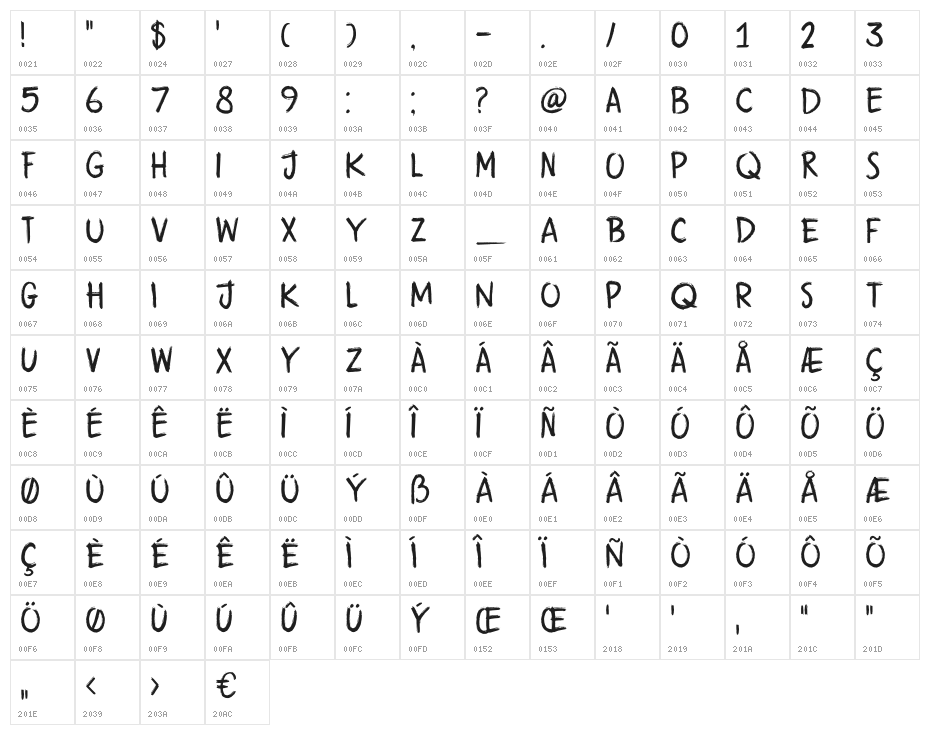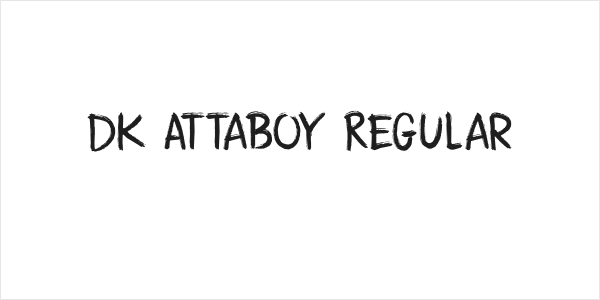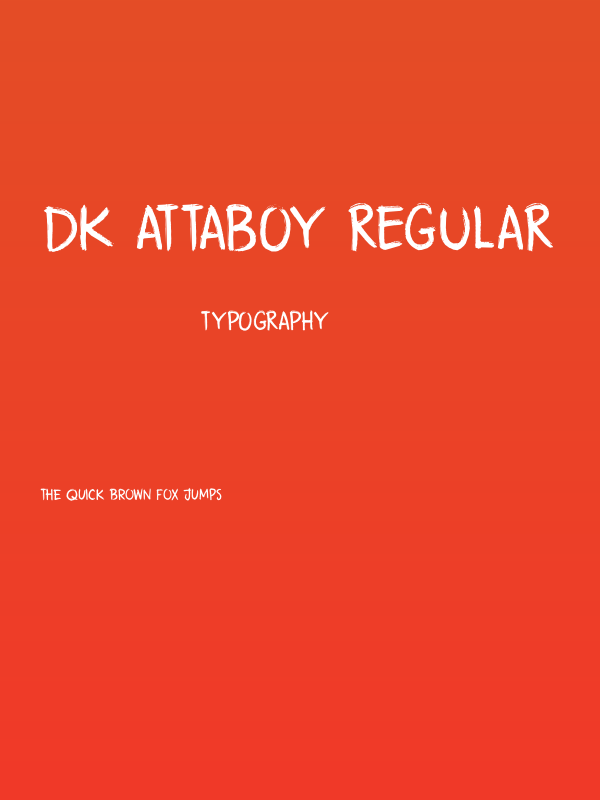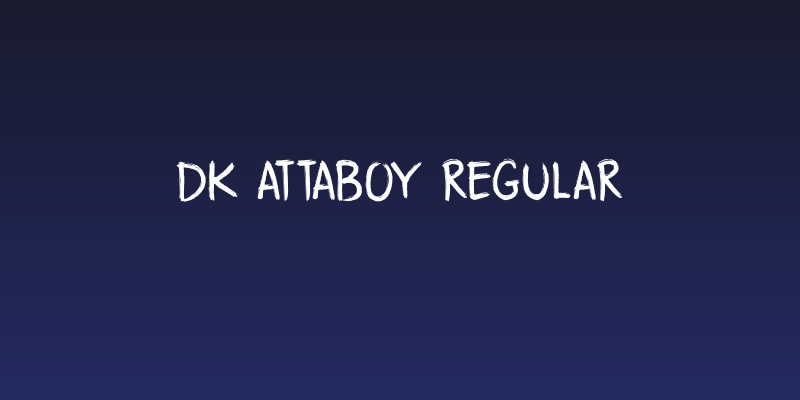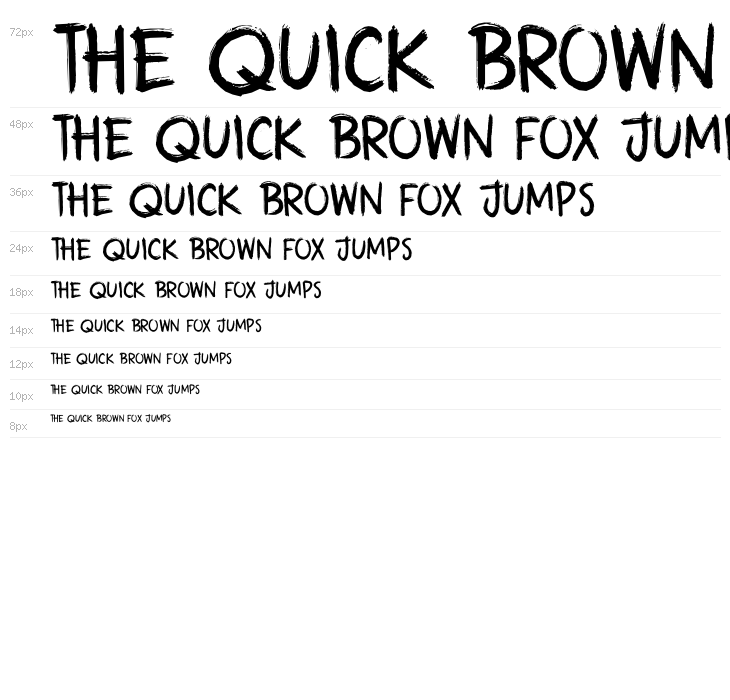
DK Attaboy Regular Font
DK Attaboy Regular Description
This font features a bold and expressive style, characterized by its brush-like strokes that give it a hand-painted appearance. The letters are slightly irregular, adding a dynamic and energetic feel. The uppercase and lowercase letters maintain a consistent style, with rounded edges and a playful aesthetic. The numbers and special characters follow the same design principles, ensuring a cohesive look across all text elements. The font's unique style makes it stand out, perfect for projects that require a touch of creativity and individuality.